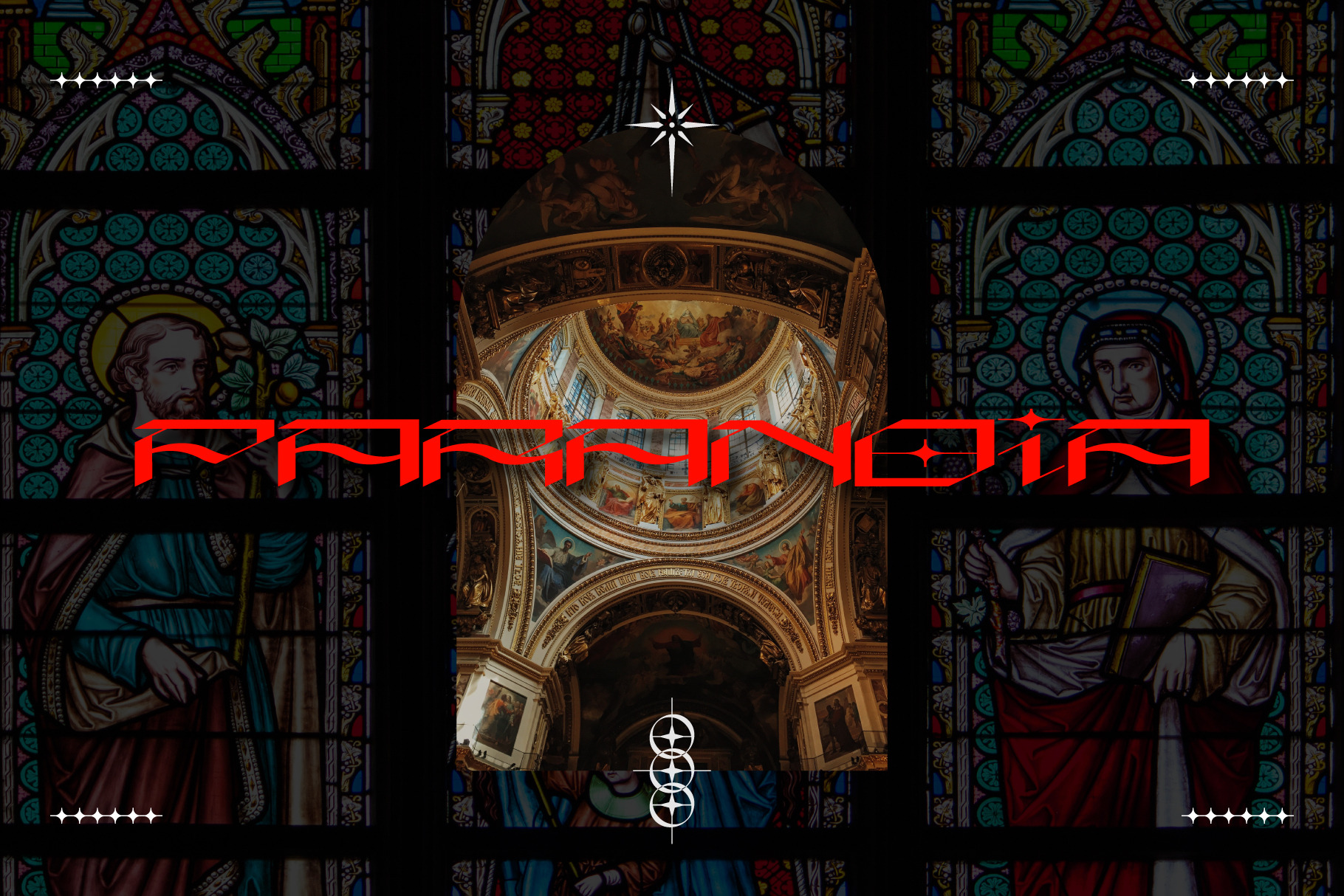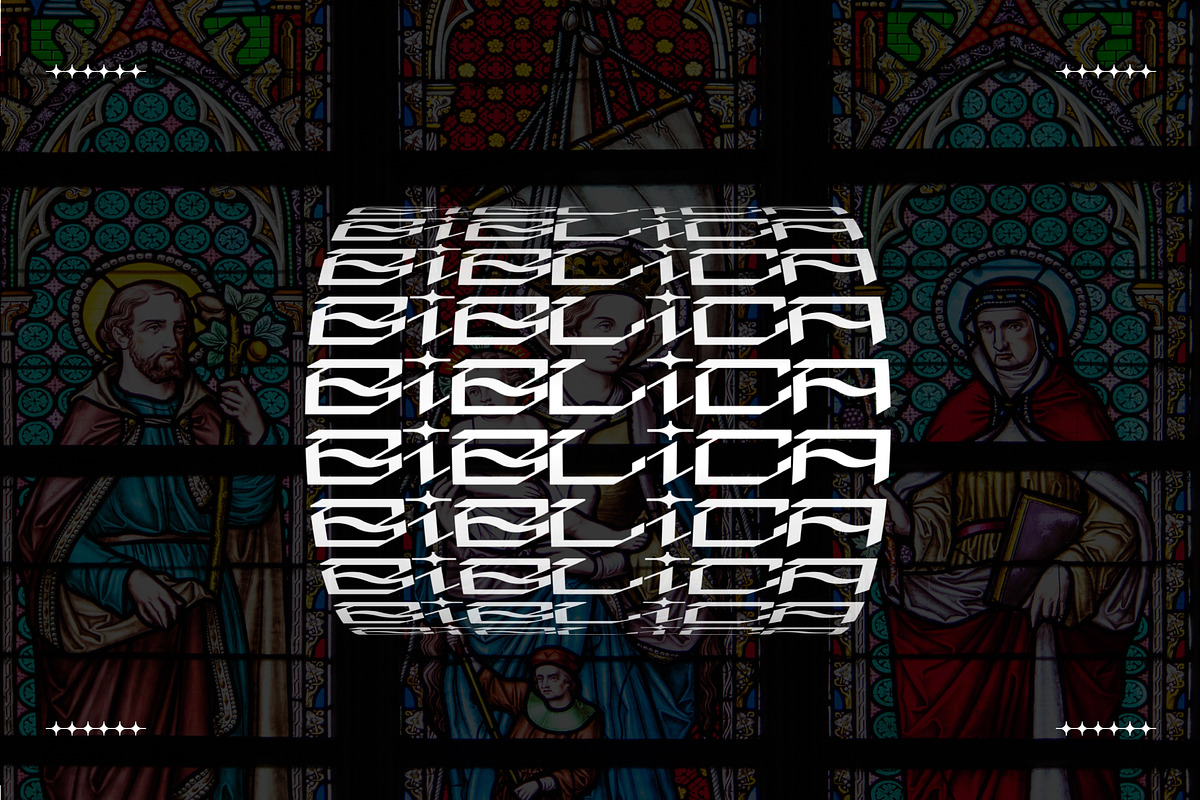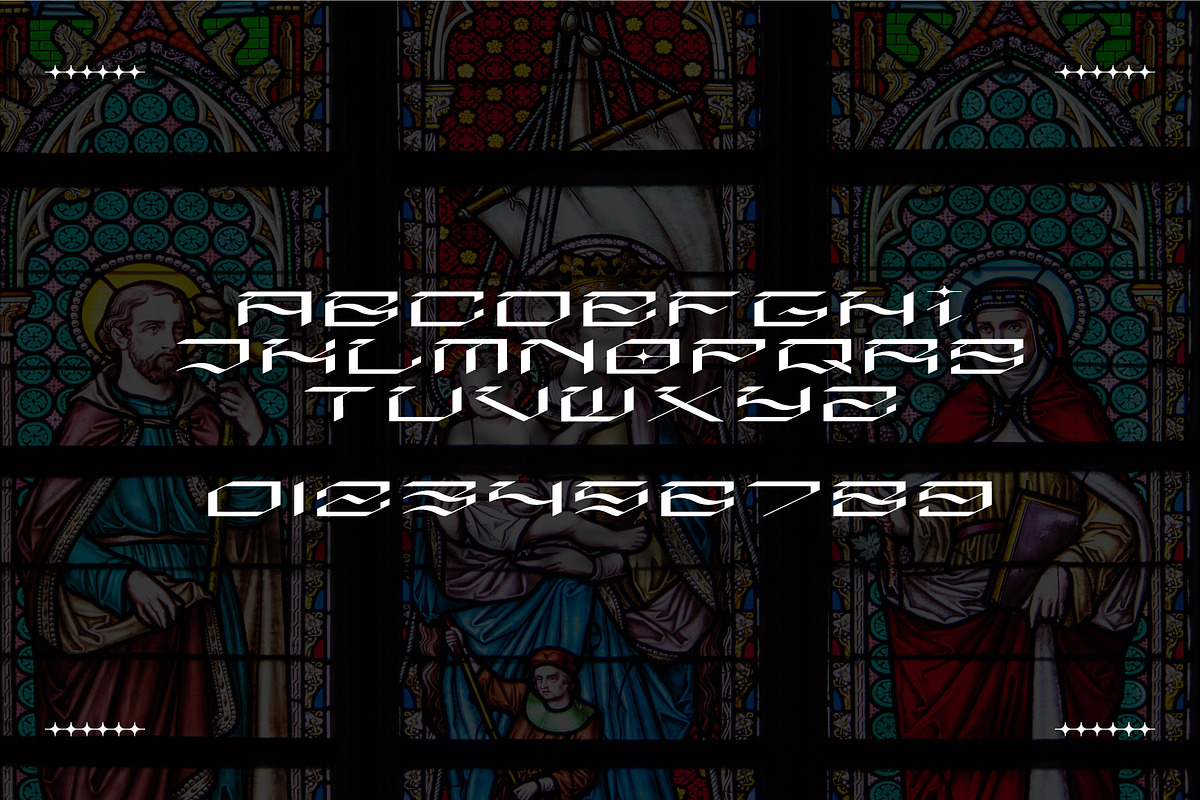
ACID GRAPHICS FONT PARANOIA TYPEFACE
Acid Graphics Font Typography - Paranoia Typeface.
Made for text display purposes, Paranoia Typeface brings a modern , gothic , sharp and strong impression to your design. With a bold acid style, suitable as the main text / header text on a poster , music artworks , website, t-shirt print, book cover etc.